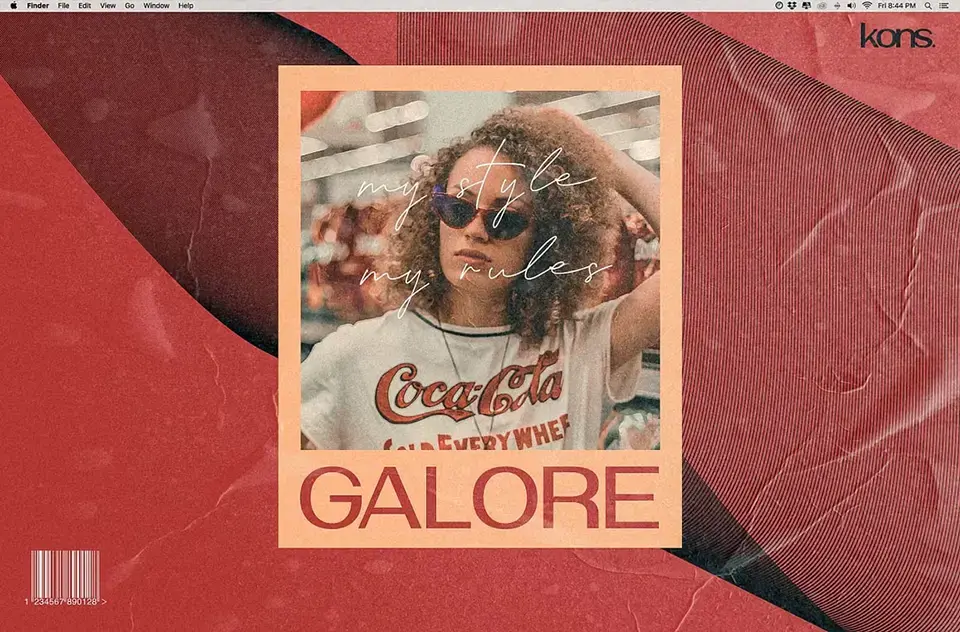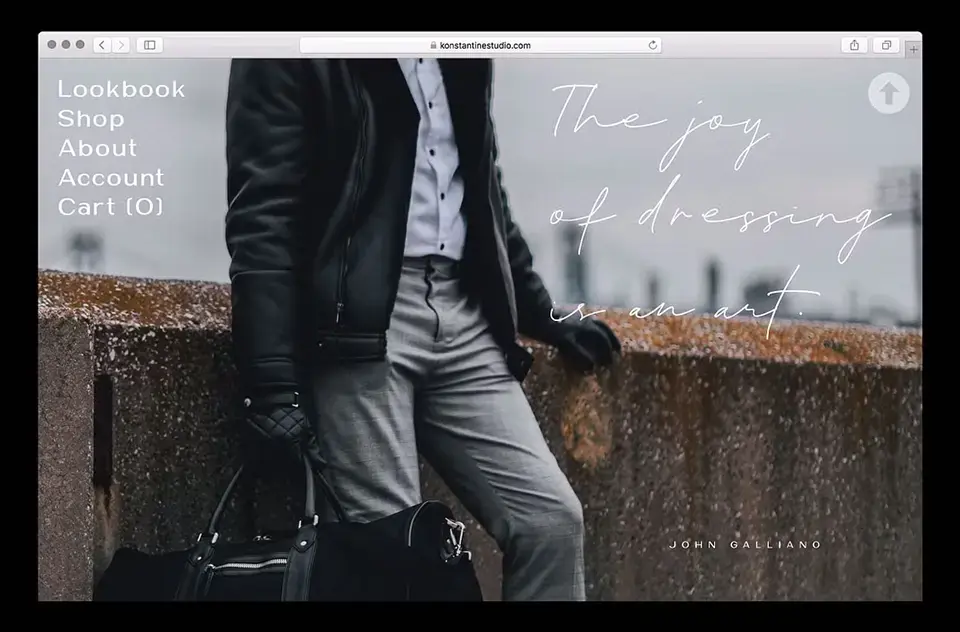
Blante Panama Script Font
Blante Panama Script is a sophisticated handwritten font featuring ballpoint pen aesthetics with smooth, flowing letterforms and dynamic character. Designed for casual and streetwear branding, this typeface excels in poster creation, event graphics, website branding, and social media content. The handwritten style captures the essence of authentic penmanship with natural curves and fluid motion, ideal for adding personality to display titles, brand logos, and creative packaging. Its retro-fashion-inspired design brings unpredictable energy and bold visual statements to any project.